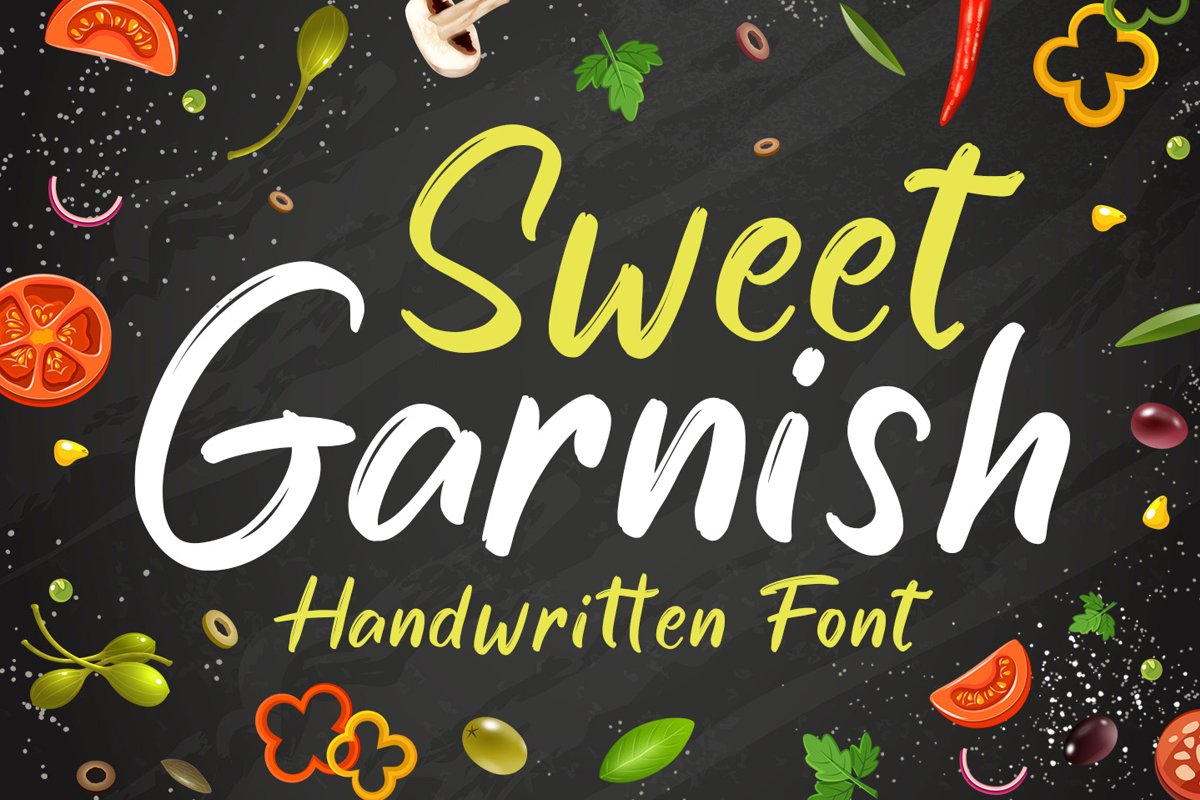
Cute Brush Font - Sweet Garnish
Sweet Garnish
Introducing Sweet Garnish Font. A playful and unique font. It has a unique and different style and will give your design a fun touch.
Sweet Garnish would be perfect for logos & branding, photography, watermark, social media posts, advertisements, invitation, product designs, label, stationery, wedding designs, product packaging, special events or anything that need handwriting taste.
• Sweet Garnish includes capital and lowercase letters, Alternates, and Ligatures
• Numbers + punctuation
• Foreign language support